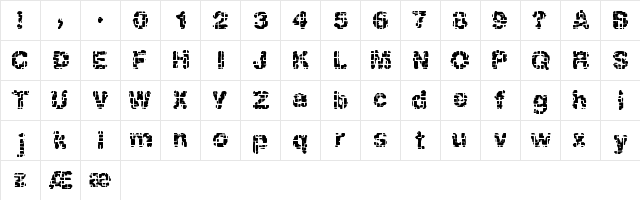
Katalyst inactive BRK Regular
| Foundry | ƎIGMA FONTS |
| Designer | ƎIGMA FONTS - Brian Kent |
Design Context for Katalyst inactive BRK Typeface
Katalyst inactive BRK is a composed and adaptable typeface that performs quietly and consistently across a wide range of design contexts.